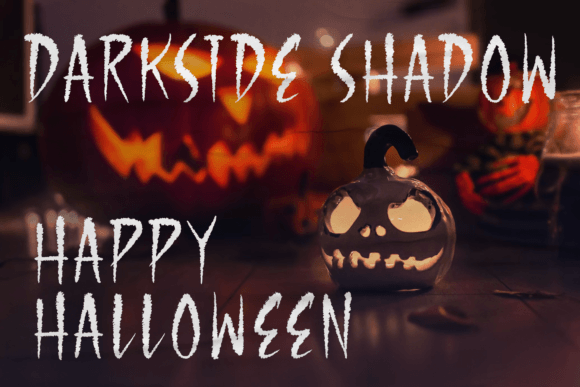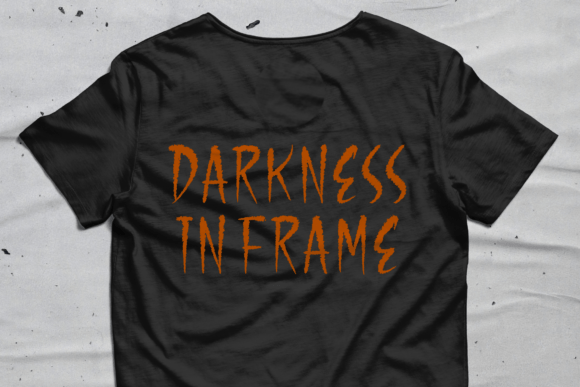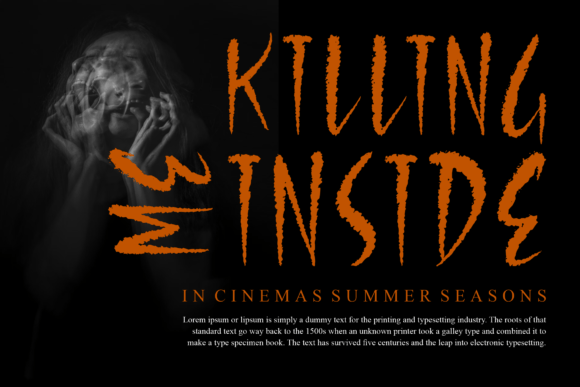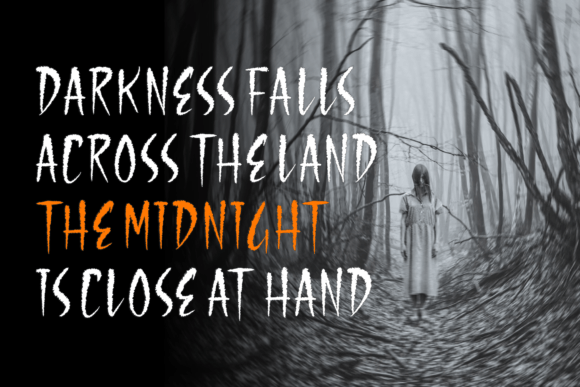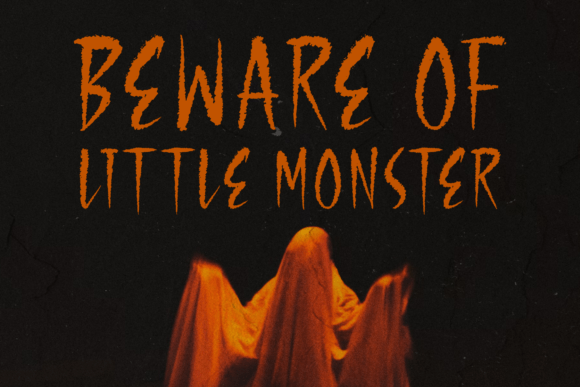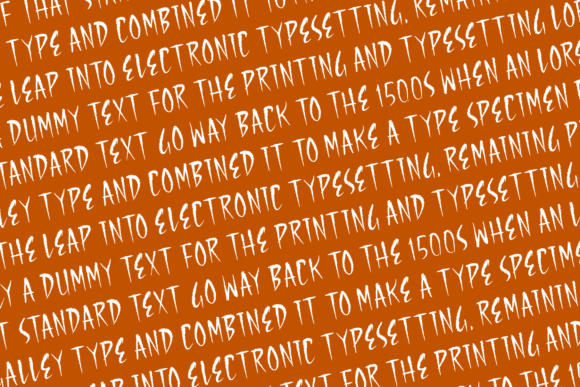
Unleash the Spookiness: Darkside Shadow Font for Your Creative Projects
Are you a designer or crafter looking for a unique and eerie font to add a touch of spookiness to your projects? Look no further than the Darkside Shadow Font. This handwritten font is perfect for creating a haunting atmosphere in various designs, from logos and branding projects to homeware designs, product packaging, and more.
What is Darkside Shadow Font?
Darkside Shadow is a spooky handwritten font that is suitable for a wide range of projects. Its unique and eerie style makes it perfect for designers and crafters who want to add a touch of darkness to their work. The font is highly versatile and can be used for both personal and commercial projects.
Features of Darkside Shadow Font
• Unique and Eerie Style: Darkside Shadow Font has a distinctive and haunting style that will add a touch of spookiness to your projects.
• Highly Versatile: The font is suitable for a wide range of projects, including logos, branding projects, homeware designs, product packaging, and more.
Uses of Darkside Shadow Font
Darkside Shadow Font is perfect for a wide range of projects, including:
• Logos and Branding Projects: Create a unique and memorable logo for your business or brand with Darkside Shadow Font.
• Homeware Designs: Add a touch of spookiness to your homeware designs, such as mugs, quotes, and posters.
• Product Packaging: Make your product packaging stand out with Darkside Shadow Font.
• Mugs and T-Shirts: Create unique and eye-catching designs for mugs and t-shirts.
• Book Covers and Invitation Cards: Add a touch of eeriness to your book covers and invitation cards.
• Greeting Cards and Labels: Create unique and spooky greeting cards and labels.
• Photography and Watermark: Add a touch of darkness to your photography and watermark.
Darkside Shadow Font is a unique and eerie font that is perfect for designers and crafters who want to add a touch of spookiness to their projects. Its highly versatile and easy to use, making it suitable for a wide range of projects. With its distinctive and haunting style, Darkside Shadow Font is sure to make your designs stand out.
Whether you’re creating logos, branding projects, homeware designs, or product packaging, Darkside Shadow Font is the perfect choice. So why not give it a try and unleash the spookiness in your designs?